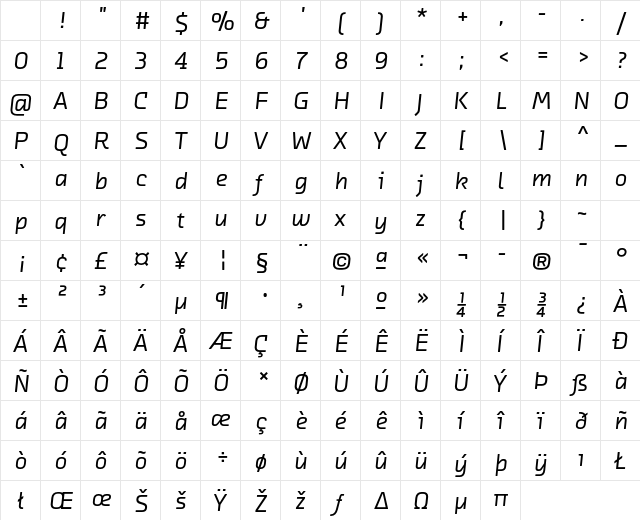
Complete Chambers Sans OT Medium Italic glyph index. Displaying only characters natively supported by Chambers Sans OT Medium Italic font.
Chambers Sans OT is a composed and adaptable typeface that performs quietly and consistently across a wide range of design contexts. The slanted form adds forward momentum and visual energy.
Pro Tip: Use Chambers Sans OT for emphasis, pull quotes, and subheadings where its slanted energy can add rhythm to the layout.